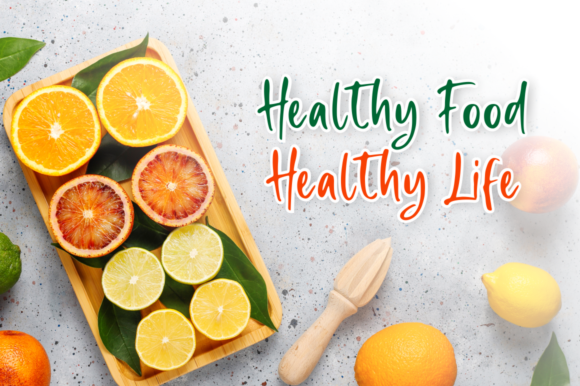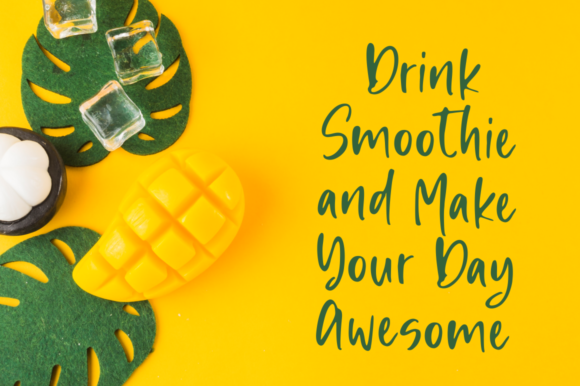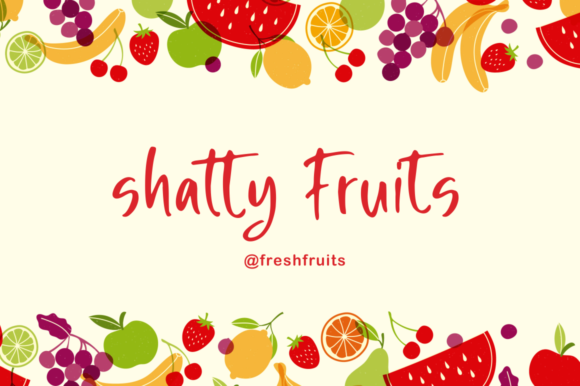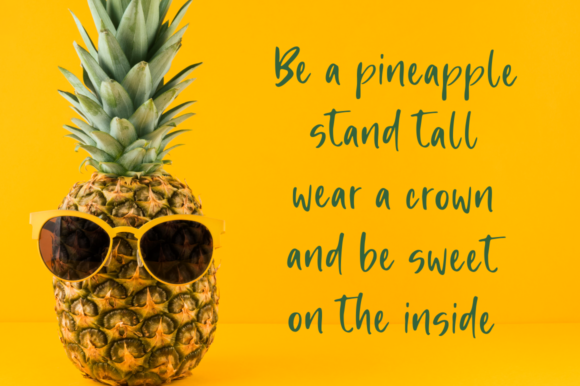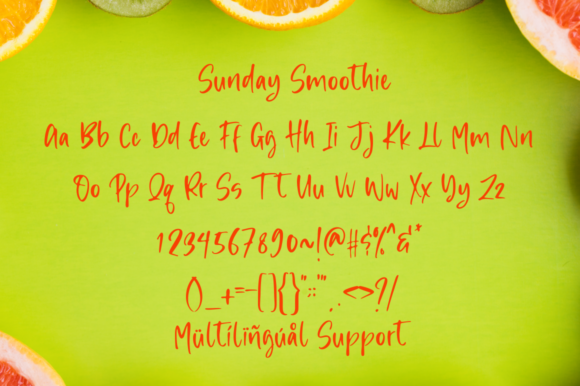
Sunday Smoothie Font
About Sunday Smoothie Font
Sunday Smoothie is a graceful and captivating handwritten font that exudes elegance and charm. Its delicate strokes and flowing curves create a harmonious and balanced appearance, making it the perfect complement to a wide range of designs. Whether you’re working on wedding invitations, inspirational quotes, greeting cards, logos, or any other project, Sunday Smoothie breathes life into your creative ideas, transforming them into works of art.
With its well-balanced characters and refined style, Sunday Smoothie is a font that seamlessly blends sophistication and approachability. Its natural and authentic handwritten feel adds a touch of warmth and personality to any design, instantly connecting with your audience and leaving a lasting impression.
When used in wedding invitations, Sunday Smoothie sets the tone for a romantic and enchanting event. Its flowing script beautifully conveys love and joy, making guests feel welcomed and cherished from the moment they receive the invitation. The font’s elegance also shines through in thank-you cards, infusing gratitude with grace and charm.
For inspirational quotes and greeting cards, Sunday Smoothie adds a touch of elegance that enhances the message’s impact. The font’s delicate appearance draws readers in, inviting them to reflect on the words and find solace in their beauty.
Logos designed with Sunday Smoothie acquire a timeless appeal that reflects a brand’s sophistication and authenticity. It elevates the brand’s visual identity, making it stand out and resonate with customers on a deeper level.
Sunday Smoothie’s versatility also extends to digital content, where it adds a touch of elegance to social media posts, blog graphics, and website designs. In the fast-paced world of digital communication, the font’s captivating style captures attention and encourages engagement.
As you incorporate Sunday Smoothie into your most creative ideas, you’ll notice how it breathes life into your designs, transforming them from ordinary to extraordinary. Its well-balanced characters, elegant touch, and flowing script work together harmoniously, making it a font that leaves a lasting impact on any project.
Embrace the magic of Sunday Smoothie and let its delicate and flowing handwritten charm elevate your creativity to new heights. This font is a true masterpiece, capable of making your designs come alive with grace, beauty, and allure. Let your imagination soar, and allow Sunday Smoothie to weave its enchanting spell over your creative endeavors. The result will be nothing short of breathtaking, capturing hearts and leaving a lasting impression on all who behold it.